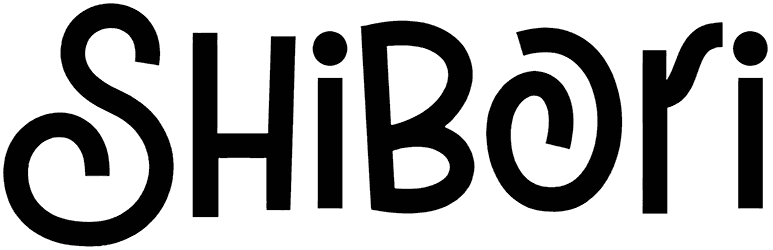
Shibori Font
When you set a playful and ravishing letterform like this cartoon font on your layout, the final show will be more eye-catching. The smooth line of characters can throw a whimsical mood into your designs, namely a baby shower invitation card. The Shibori font doesn’t support lowercase letters and numbers, but having two sets of capitals will make up for this lack.